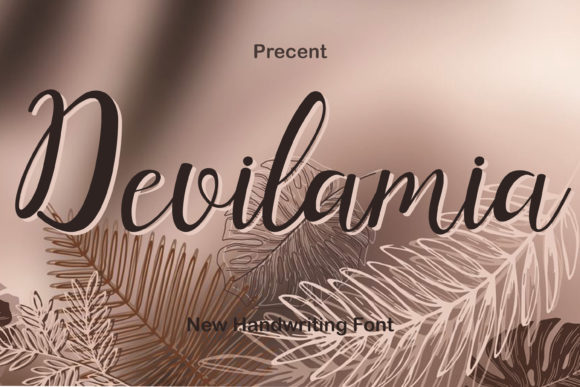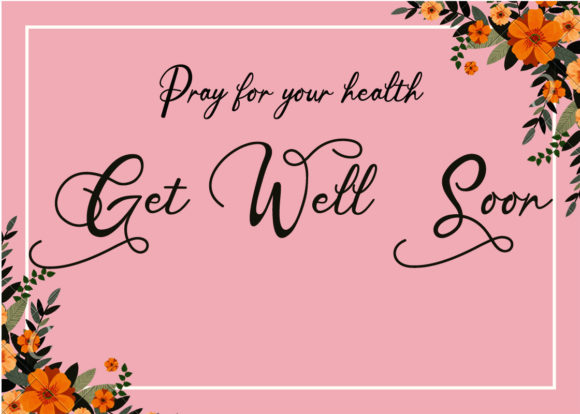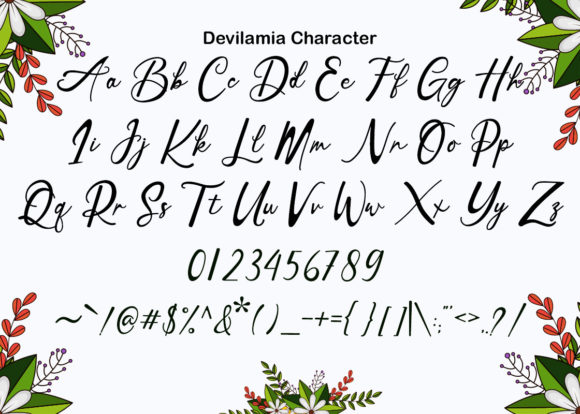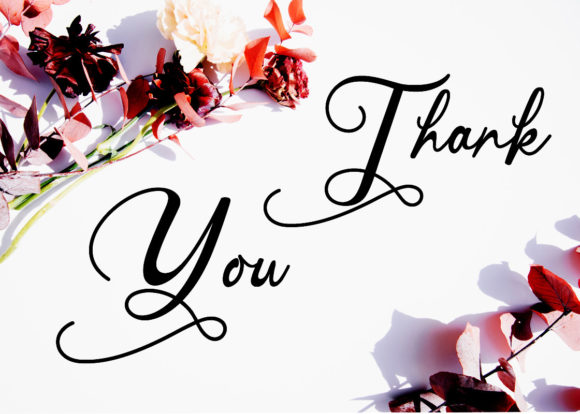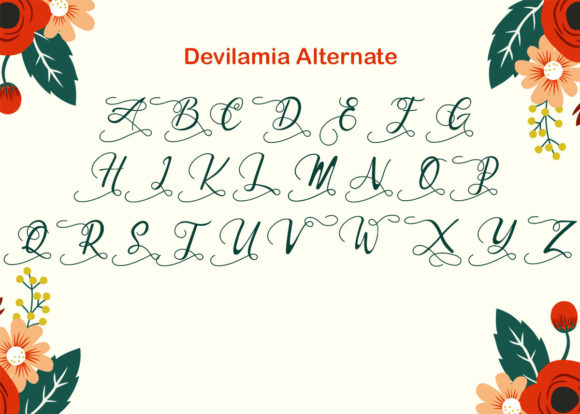
About Devilamia Font
Devilamia is a delicate script font. It was made for packaging products, decorations, invitation cards, greeting cards, flyers, event posters and so many more creative ideas.